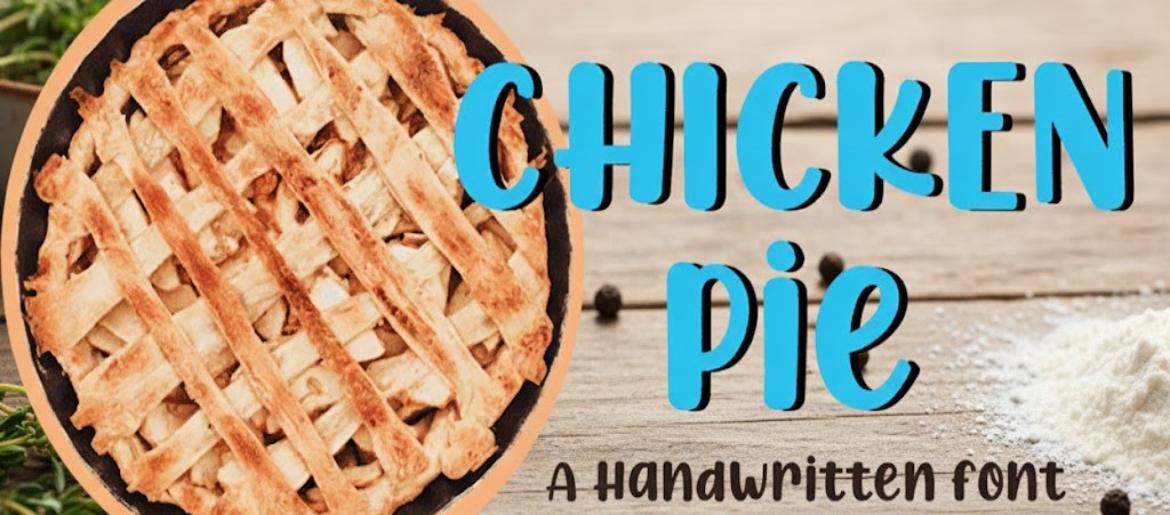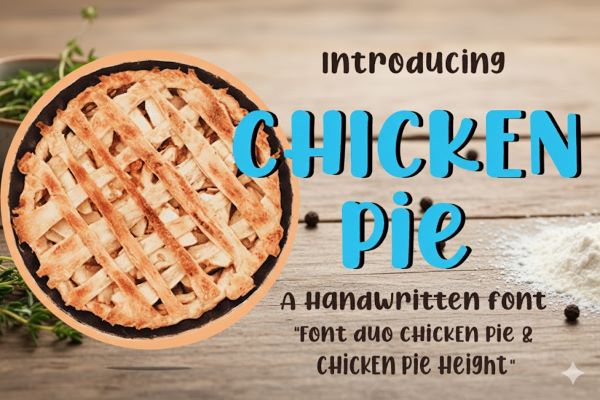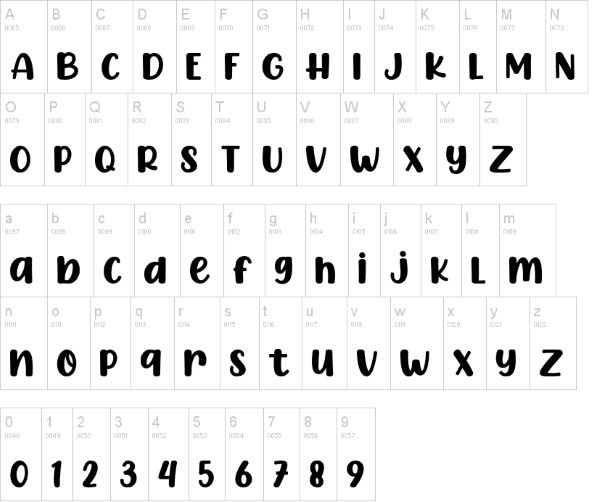
Chicken Pie Font
Chicken Pie Font is a bold sans-serif display typeface with thick strokes and a playful, friendly personality. Its strong, rounded letterforms make it perfect for logos, food packaging, posters, menus, and cheerful branding. Chicken Pie delivers eye-catching impact with a warm, fun, and approachable style.